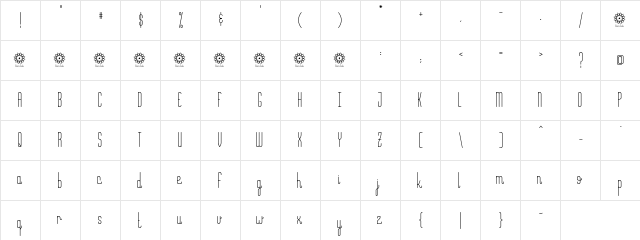
Dandeline Demo Regular
| Foundry | Katario Studio |
| Designer | Katario Studio |
Design Context for Dandeline Demo Typeface
Dandeline Demo takes a measured approach to typography — its balanced proportions and neutral character make it a reliable workhorse for both digital and print work.